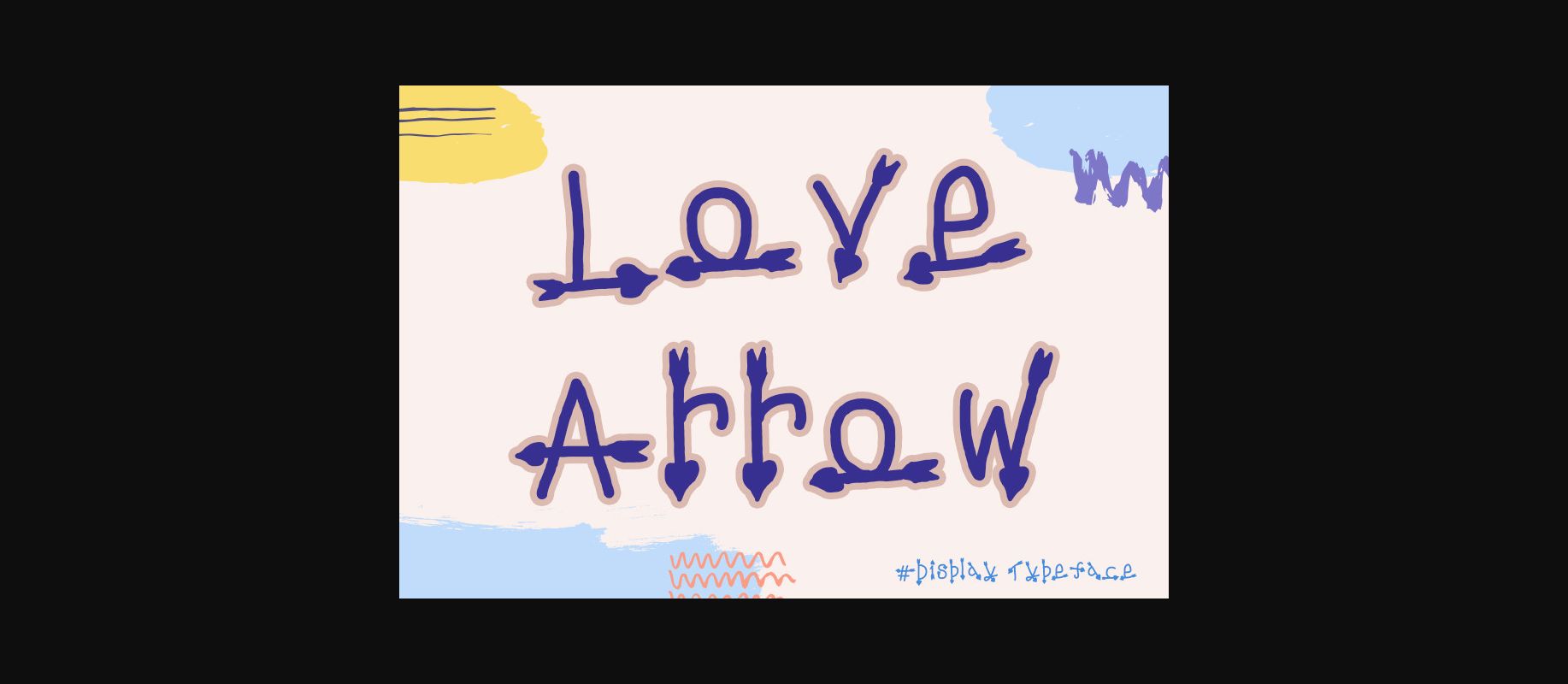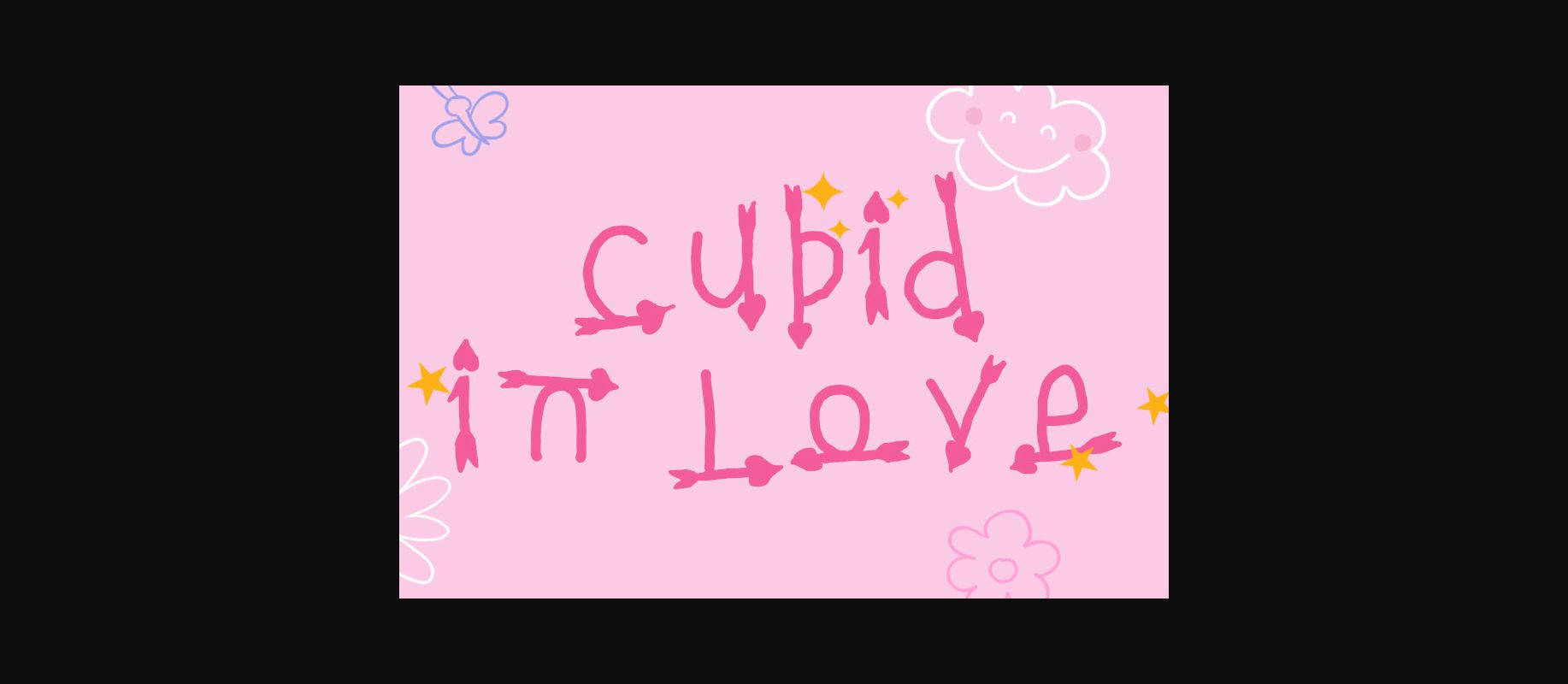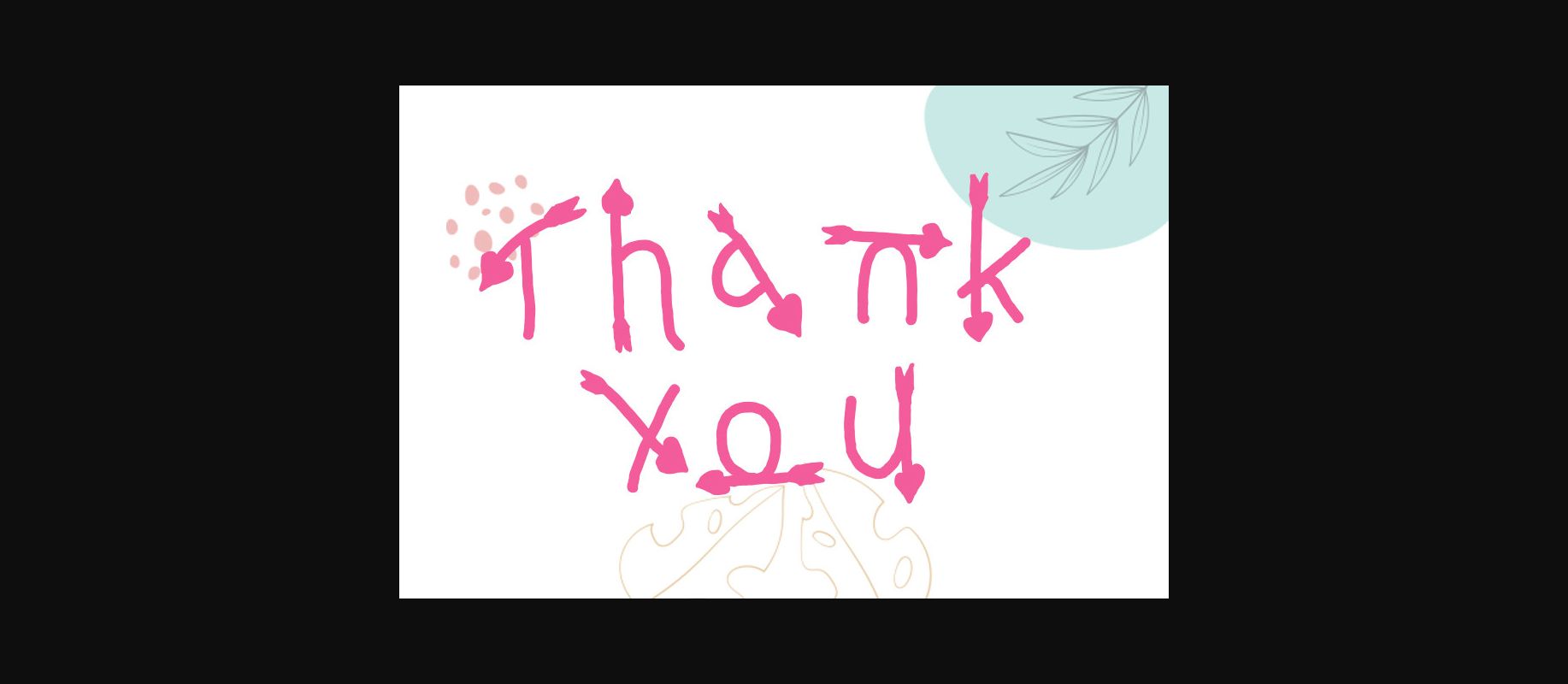
Love Arrow Font
About Love Arrow Font
Love Arrow is a fun and chunky lettered decorative font, featuring lovely arrow ornaments. This original look will appeal to a wide range of crafty ideas, from letterheads and titles, to stationery.